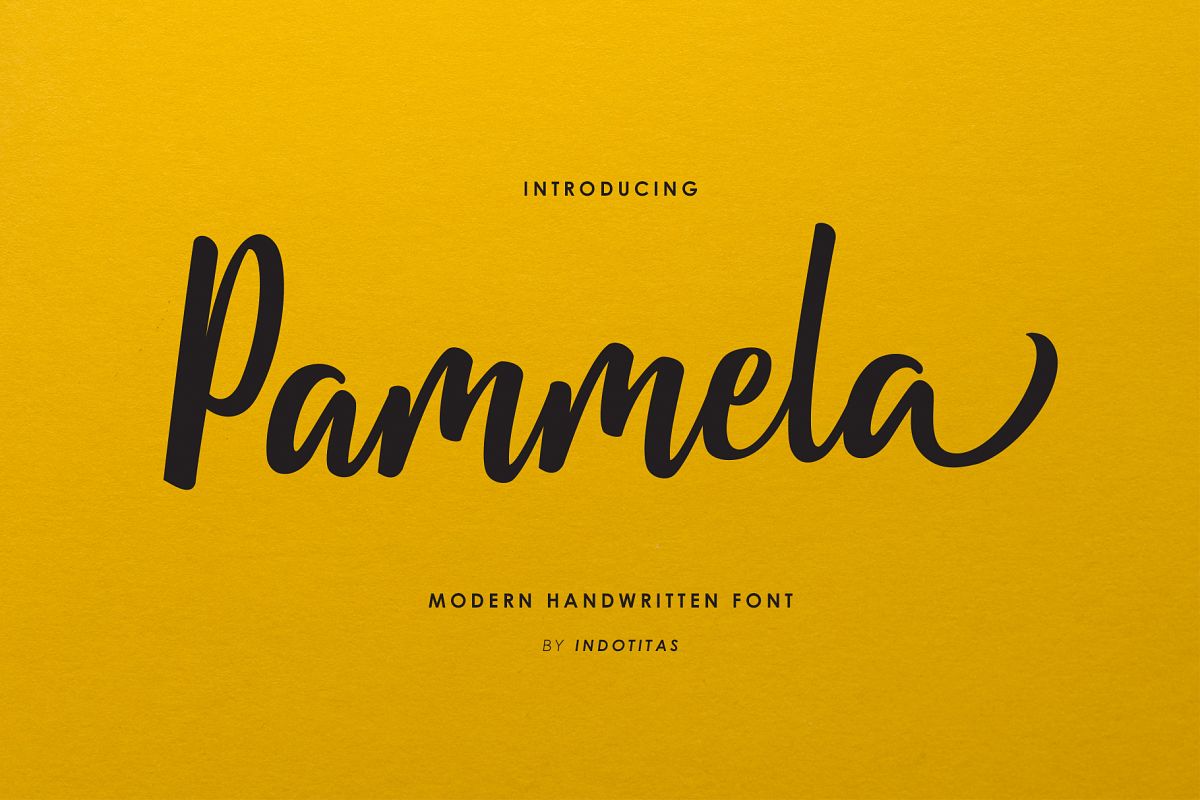
Pammela Script
Pammela Script created with stylist and modern handwritten characters. Pammela comes with Extended Latin Characters. Pammela works perfectly for logos, display, product branding, wedding invitation card, stationary, packaging, clothing, flyer, apparel, magazines, brochures, lable, posters, badges, etc.
Pammela comes with 281 glyphs and 52 alternate characters contain with opentype features (supported with contextual alternates mode). Pammela also comes with standard ligatures that allowing you to make stuff looks more exclusive and pro standard.
• Basic Latin A-Z and a-z
• Symbols
• Opentype Feature
• PUA Encode
• Multingual Support